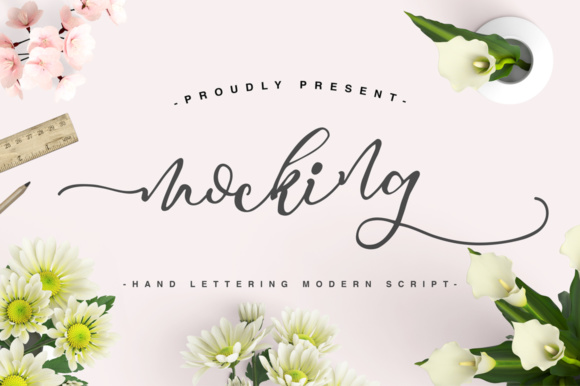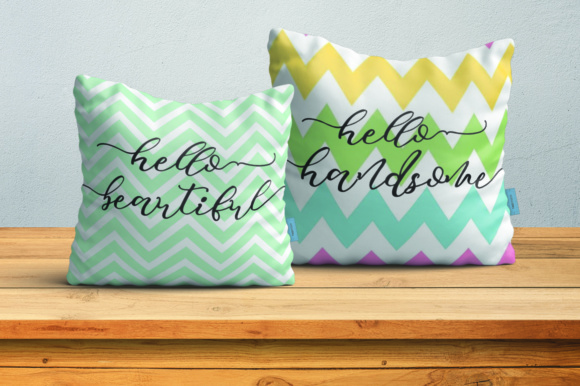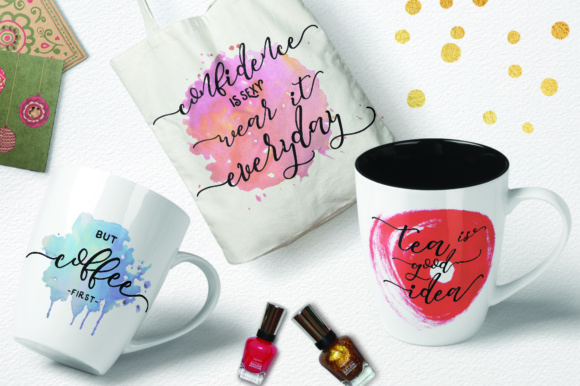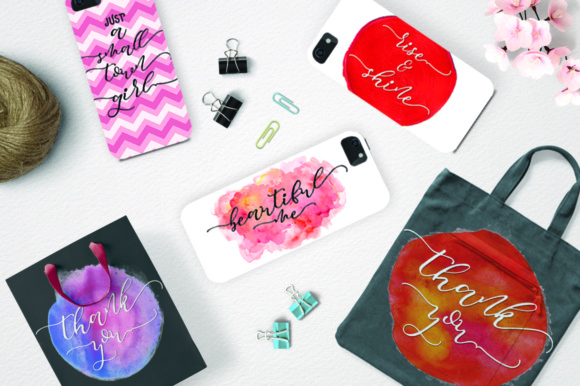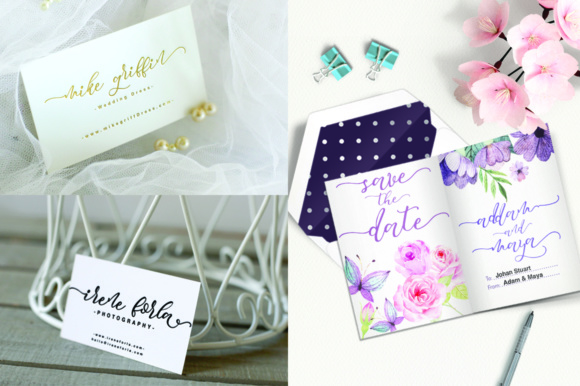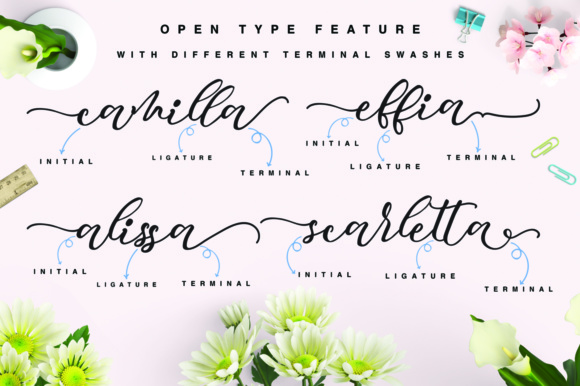
Mocking Font
About Mocking Font
The Mocking is a flirty, elegant calligraphy script with decorative characters and a bouncing baseline. It can be used for various purposes such as: logos, branding, business cards, quotes, and every other design that needs a romantic feel.